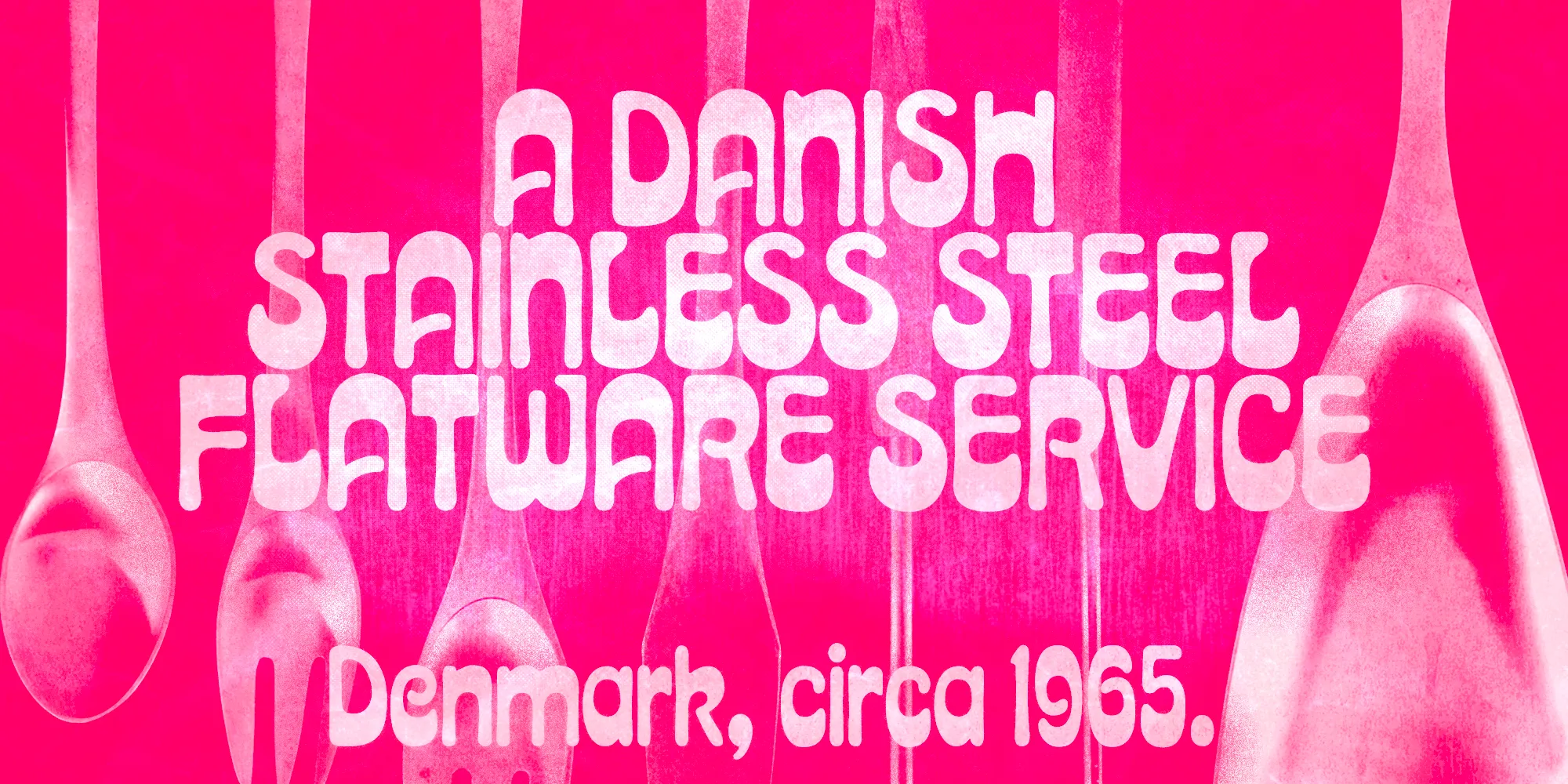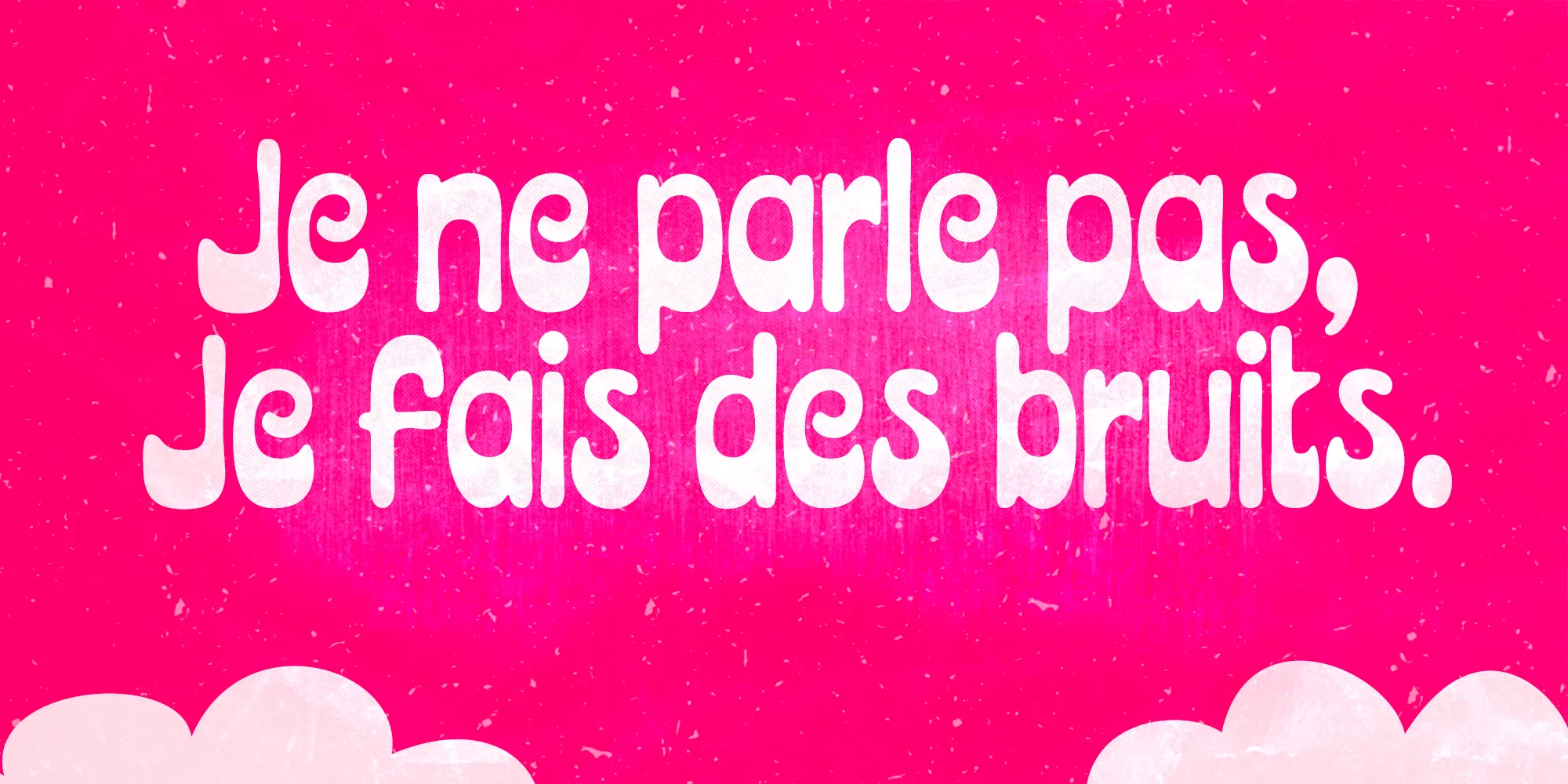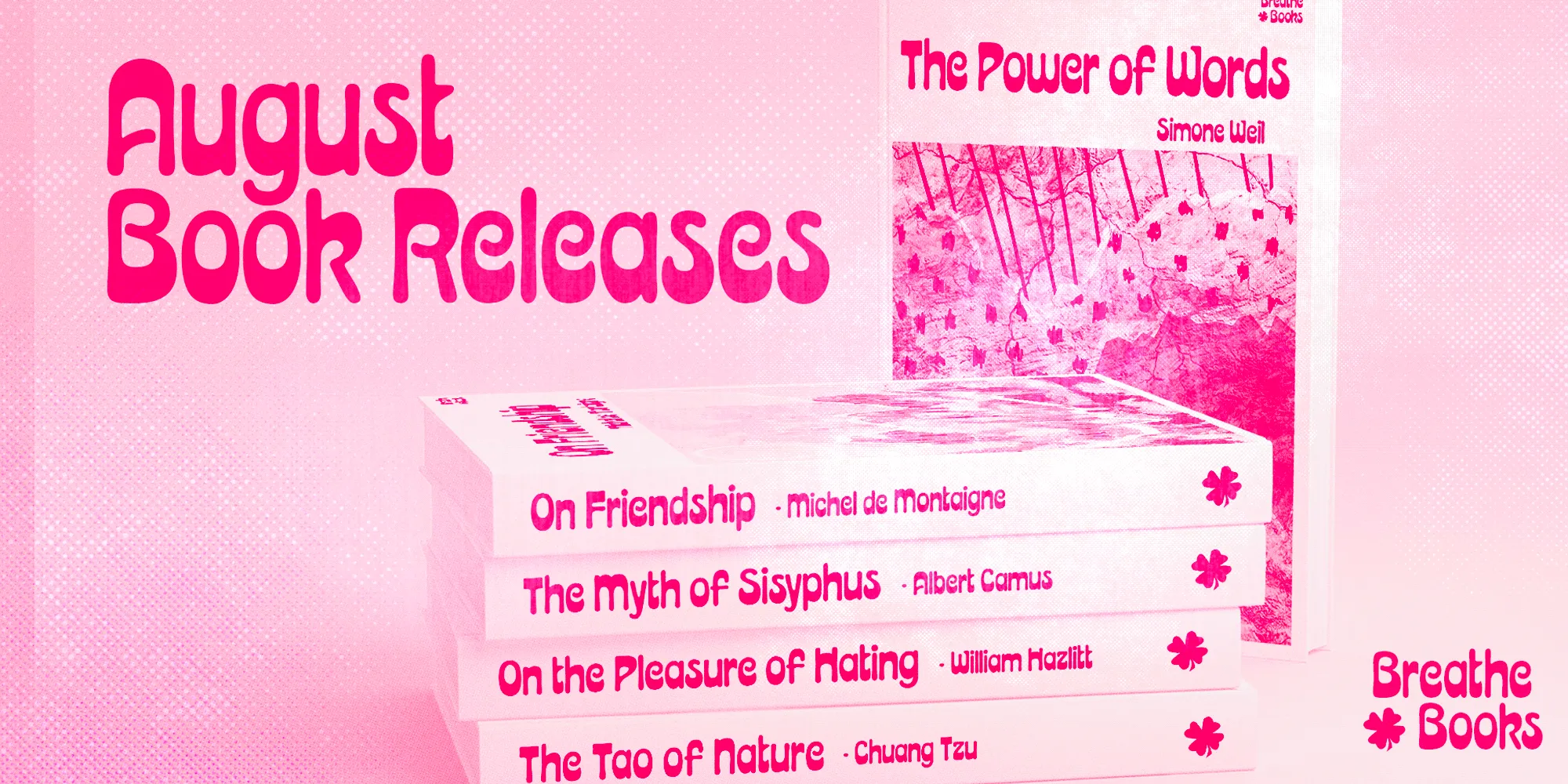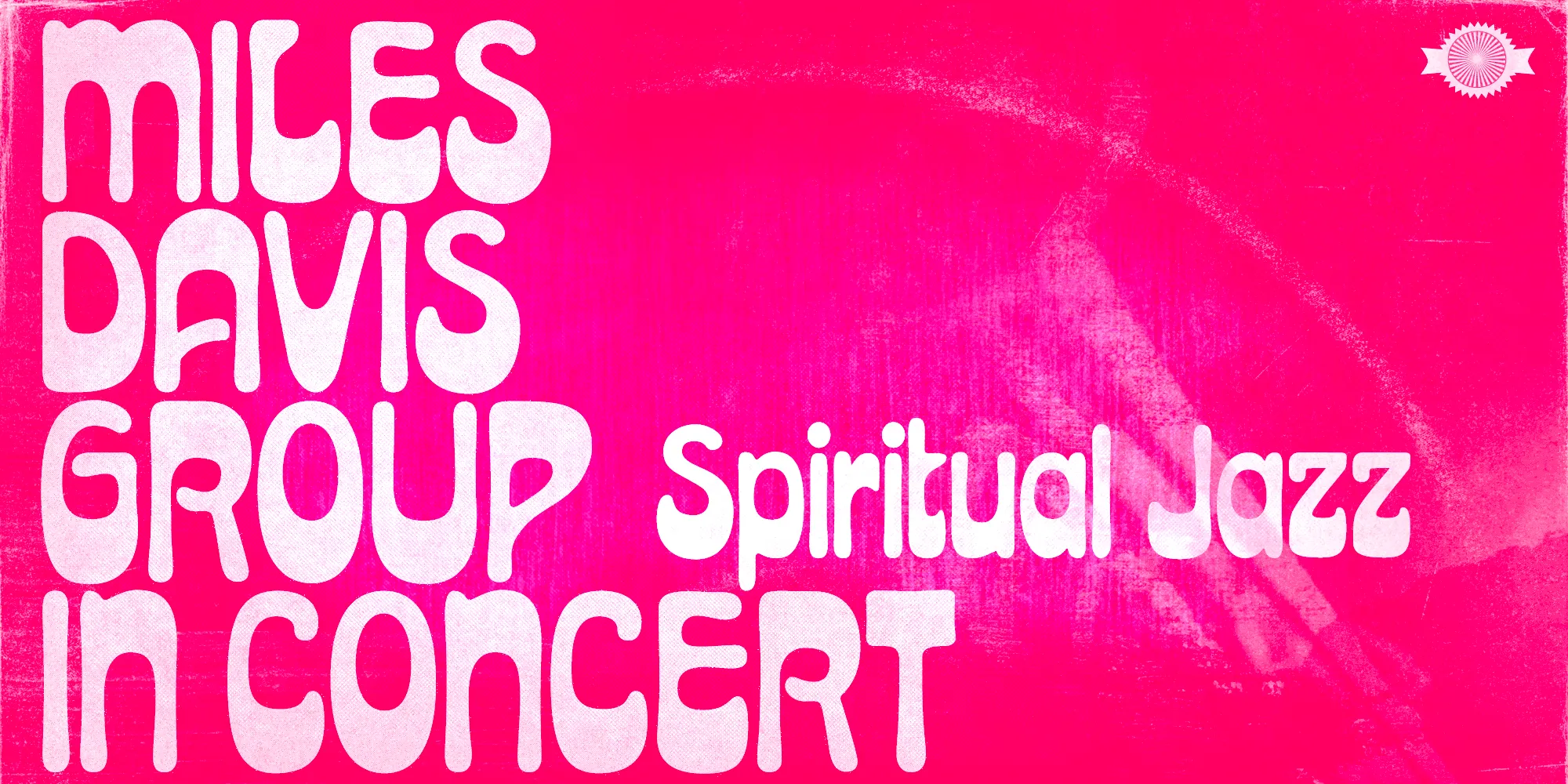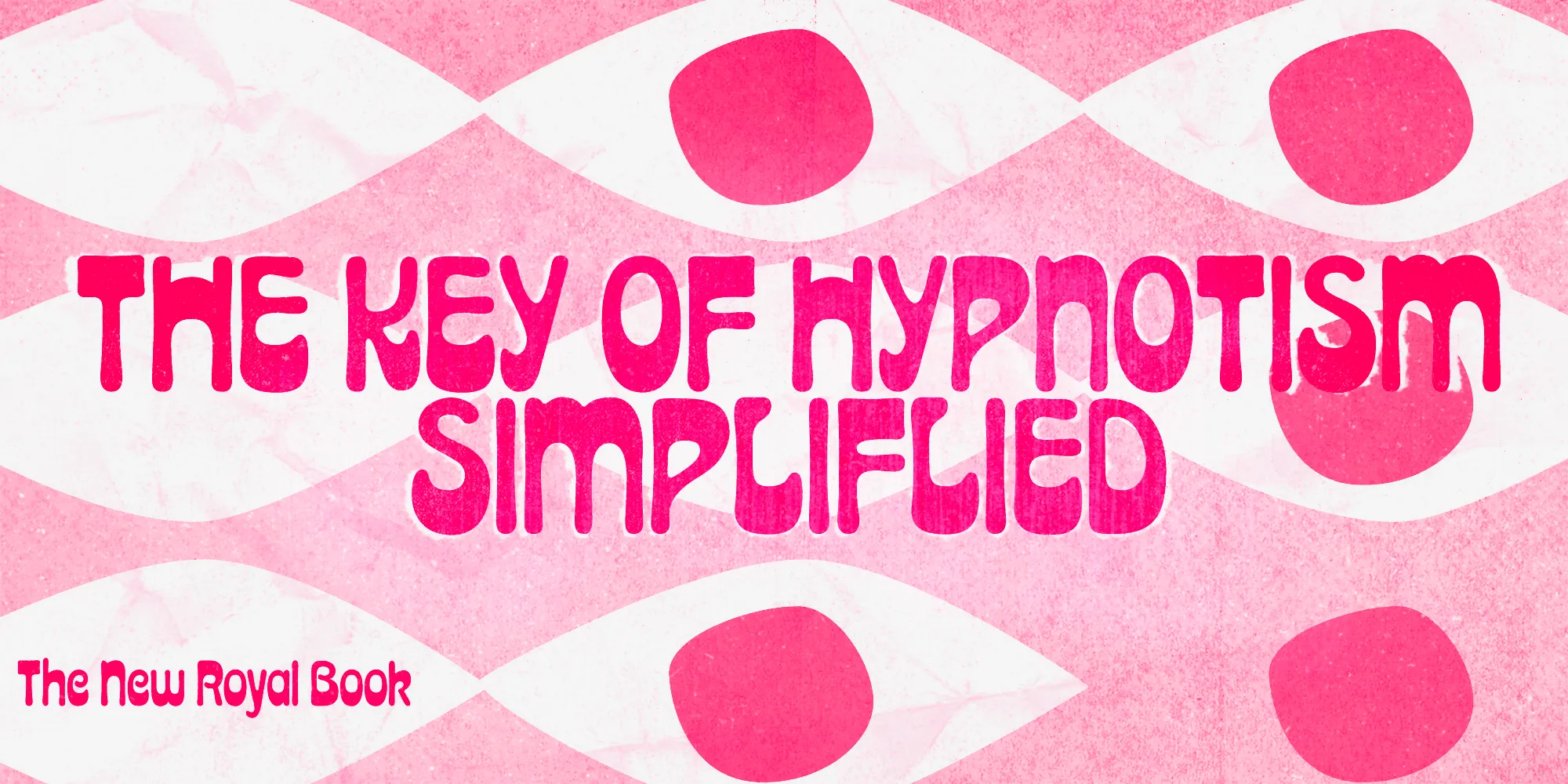
Acid Green
Acid Green is a display typeface with psychedelic flair. Its roots date back to 1914, from an unnamed alphabet by J.M. Bergling, a jewelry engraver and “letterform inventor” whose books on art alphabets and lettering influenced countless artists, including those involved with the genesis of Art Nouveau and Art Deco movements. Perfect for display use when your aim is for retro design or trippy letters. Acid Green has an extensive character set and stylistic alternates for extra grooviness.
• Discretionary Ligatures
• Fractions
• Ordinal Numerals
• Superscript